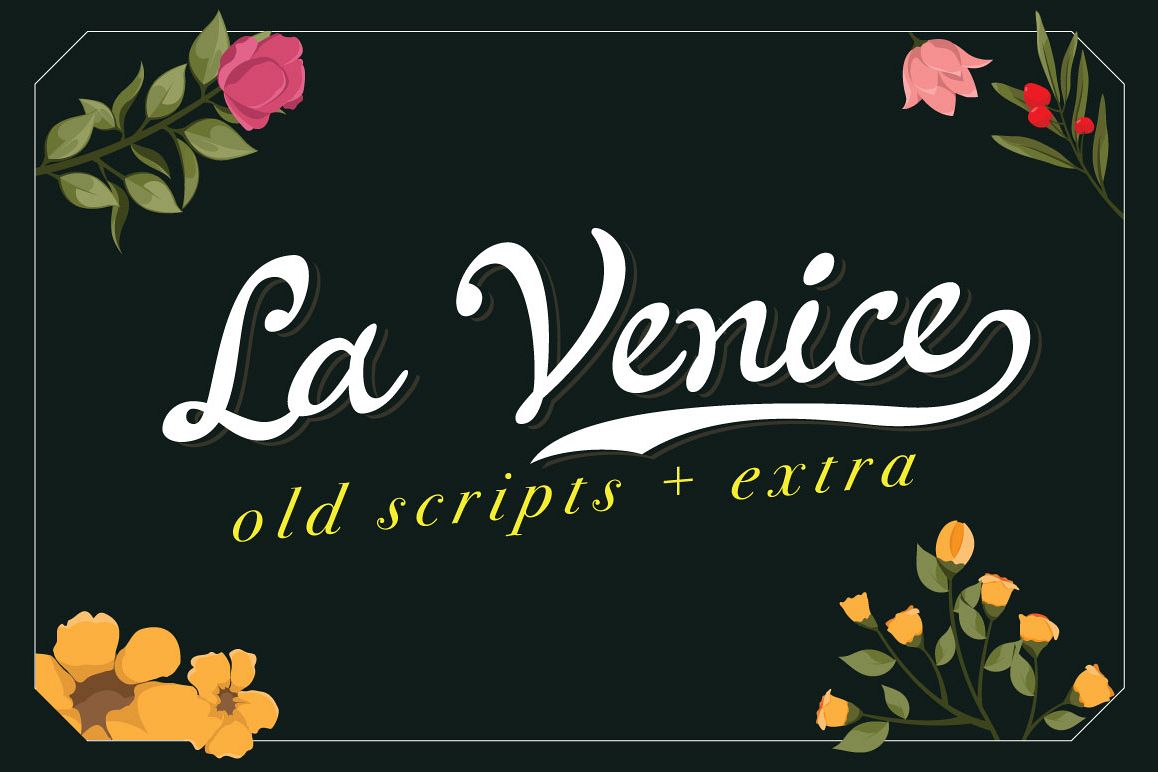
La Venice Script
Introducing La Venice Script
Based on long time research on a vintage and modern script font, I try to create the combined vintage and modern style into La Venice Script. Some of letters deliberately aren't connected to create the impression of freedom like a lettering artist. As my work to create a display, La Venice are great with clean modern style and also vintage style with or without grunge effect. My priority on this fonts is the characteristic and I didn't put too much alternates character.Features
• Contextual Alternates (auto replace letter for connecting the each letters)
• Stylistic Alternates (alternate of some character)
• Discretionary Ligatures (Combining the collision of the letters like "Th")
• End Swash (description in How To Use)